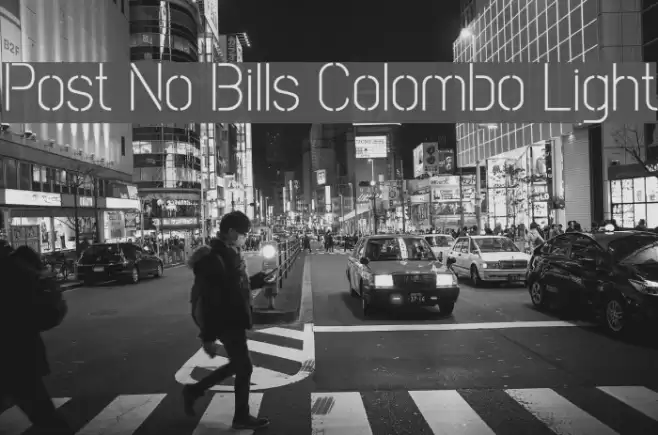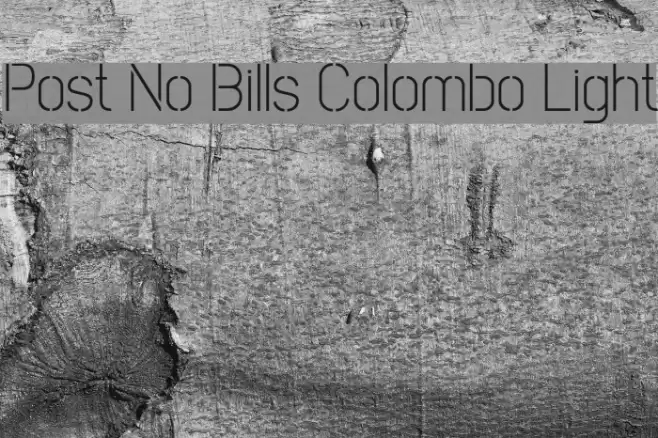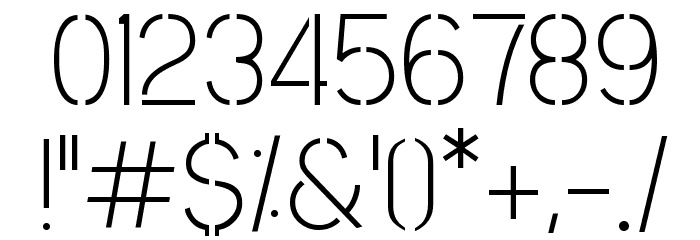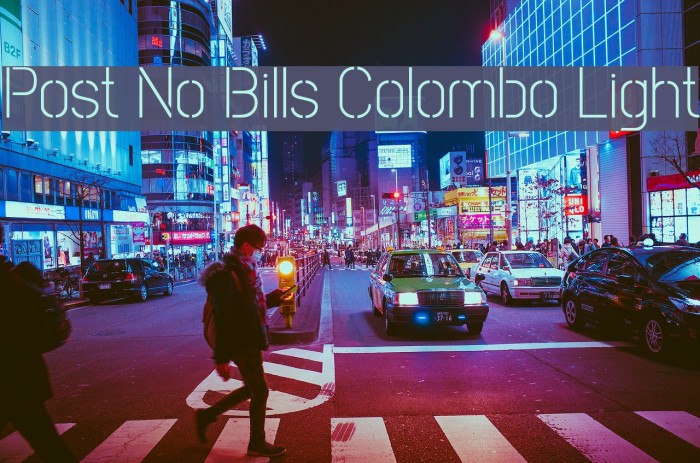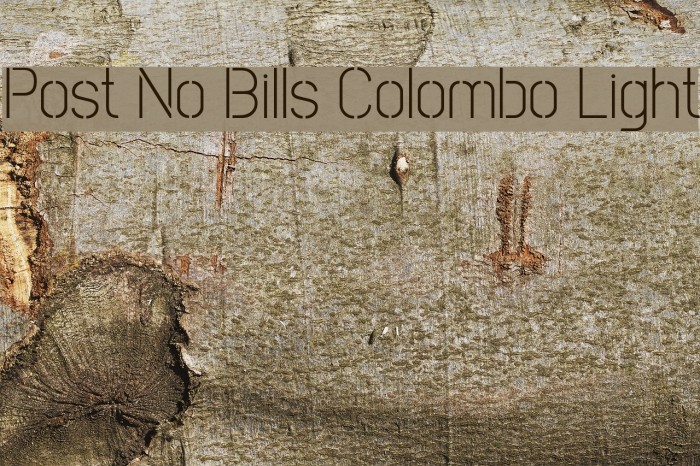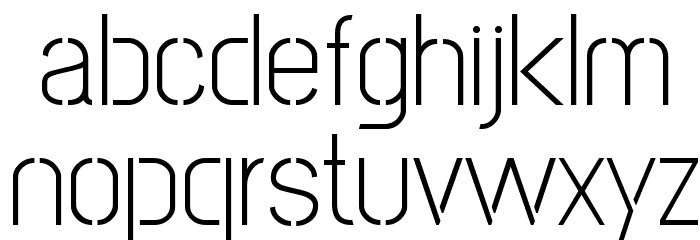
Post No Bills Colombo Light Font
Post No Bills Colombo Light Description
This font features a modern and minimalist design with clean, geometric lines. The characters are constructed with a consistent stroke width, giving it a uniform appearance. The uppercase and lowercase letters are well-proportioned, with a slight emphasis on verticality. The numerals and special characters maintain the same geometric style, ensuring harmony across all glyphs. The overall look is sleek and contemporary, making it suitable for a variety of design applications.
A modern, geometric sans-serif font with clean lines and uniform stroke width from Uncategorized fonts.